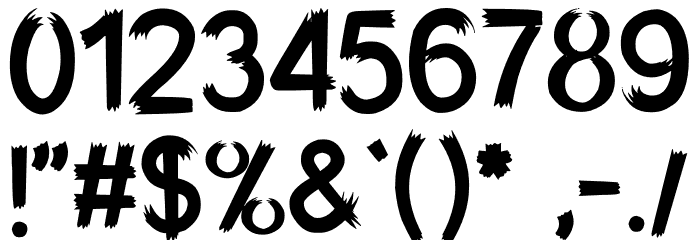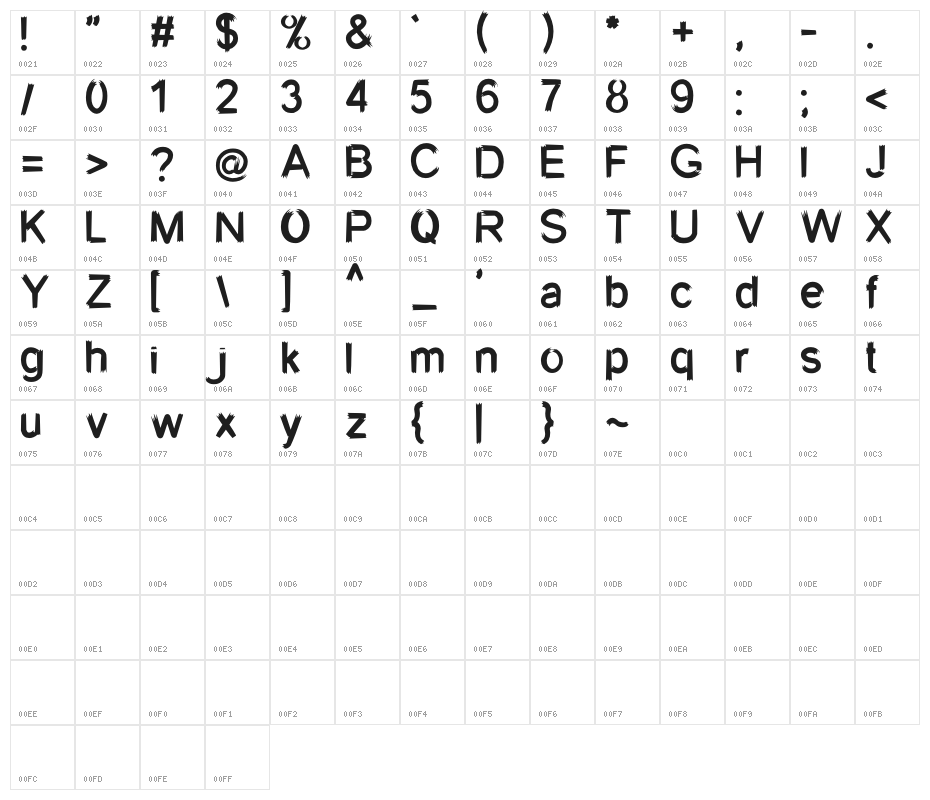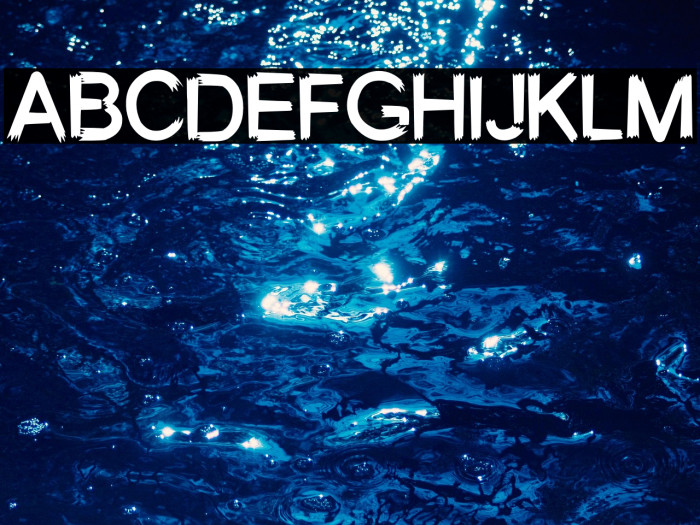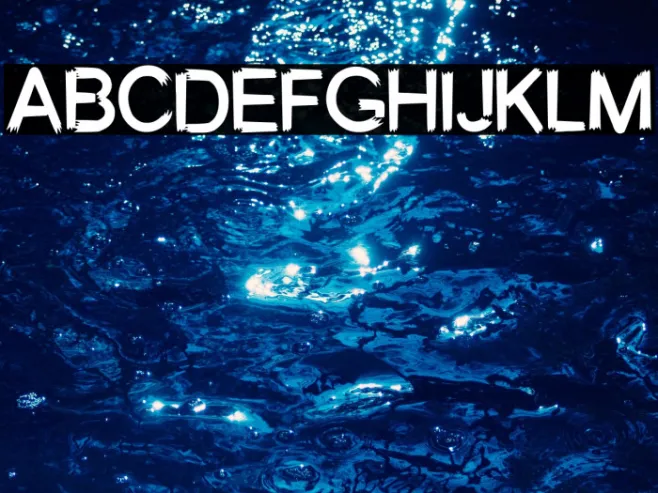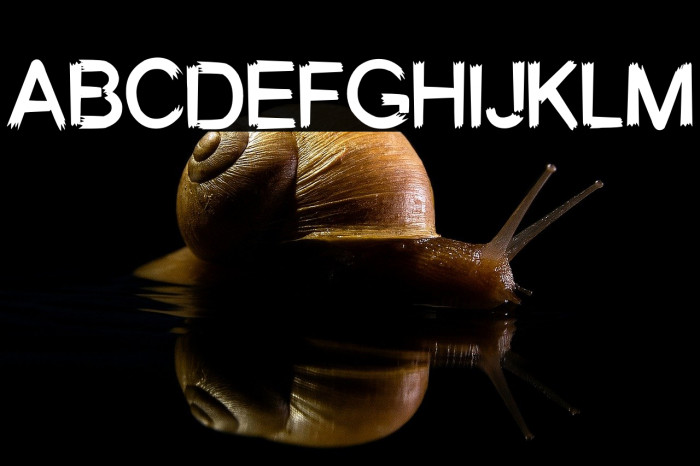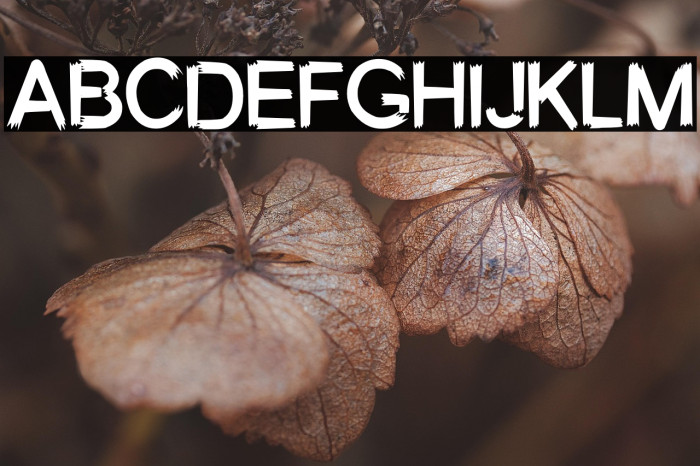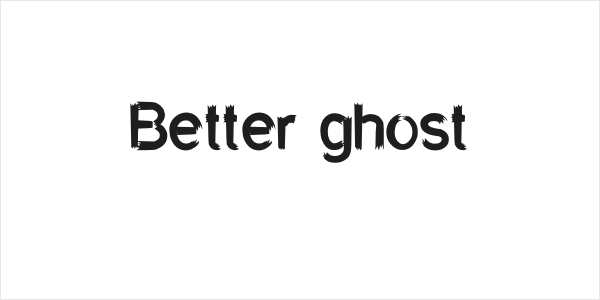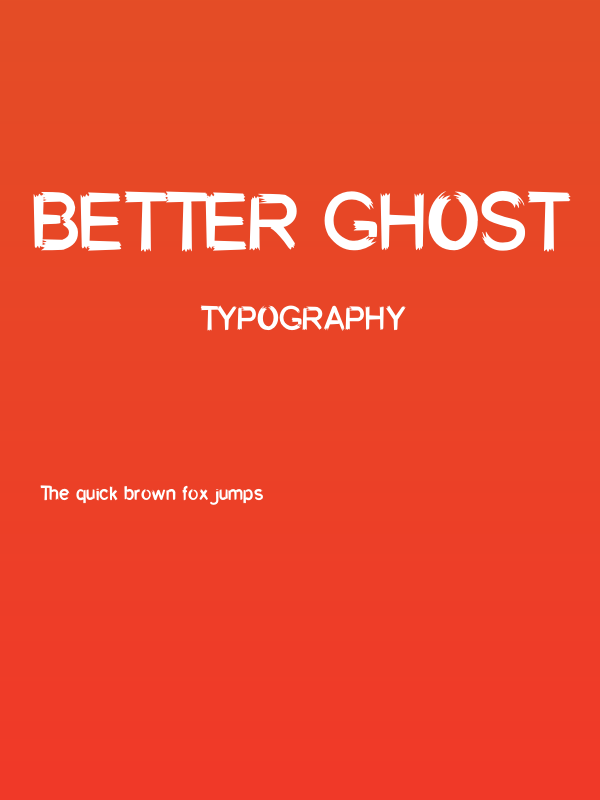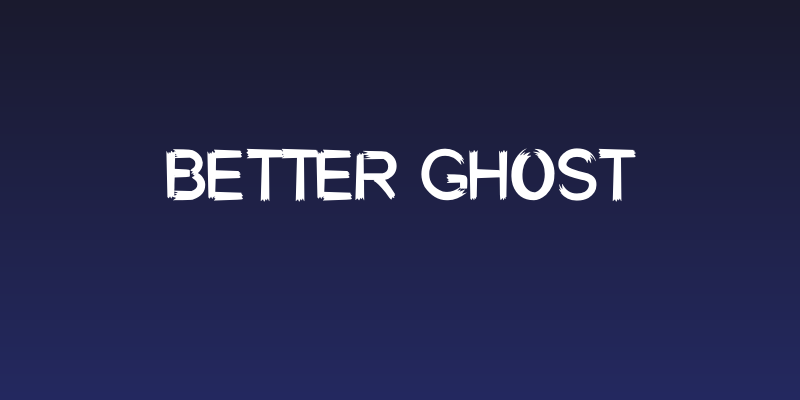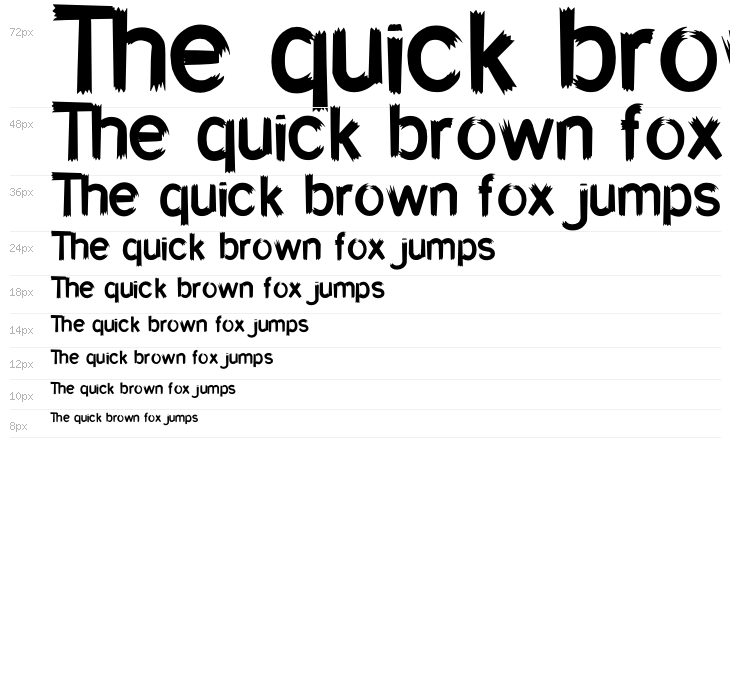
Better ghost Font
Better ghost Description
This font features a bold, brush-stroke style that gives it a dynamic and energetic appearance. The strokes are uneven and textured, creating a sense of movement and spontaneity. The uppercase and lowercase letters maintain a consistent style, with sharp edges and a slightly distressed look. Numbers and special characters follow the same aesthetic, making the font versatile for various creative applications. Its unique style is eye-catching and suitable for projects that require a bold statement.